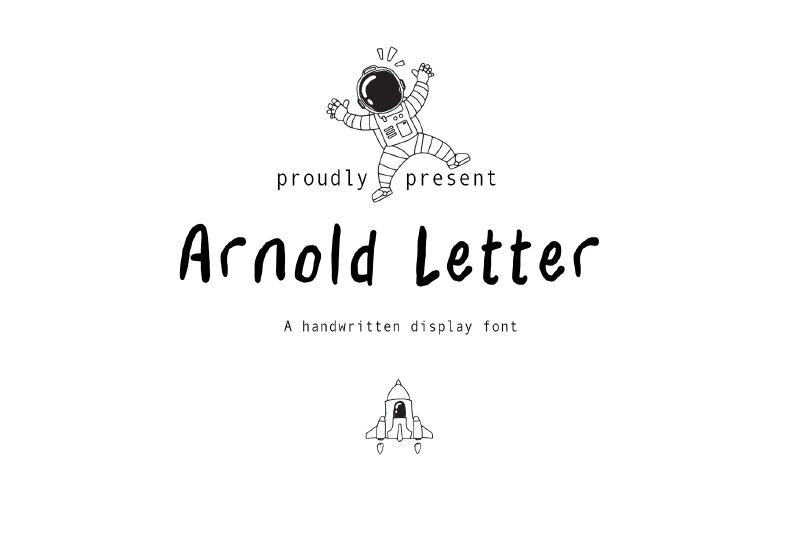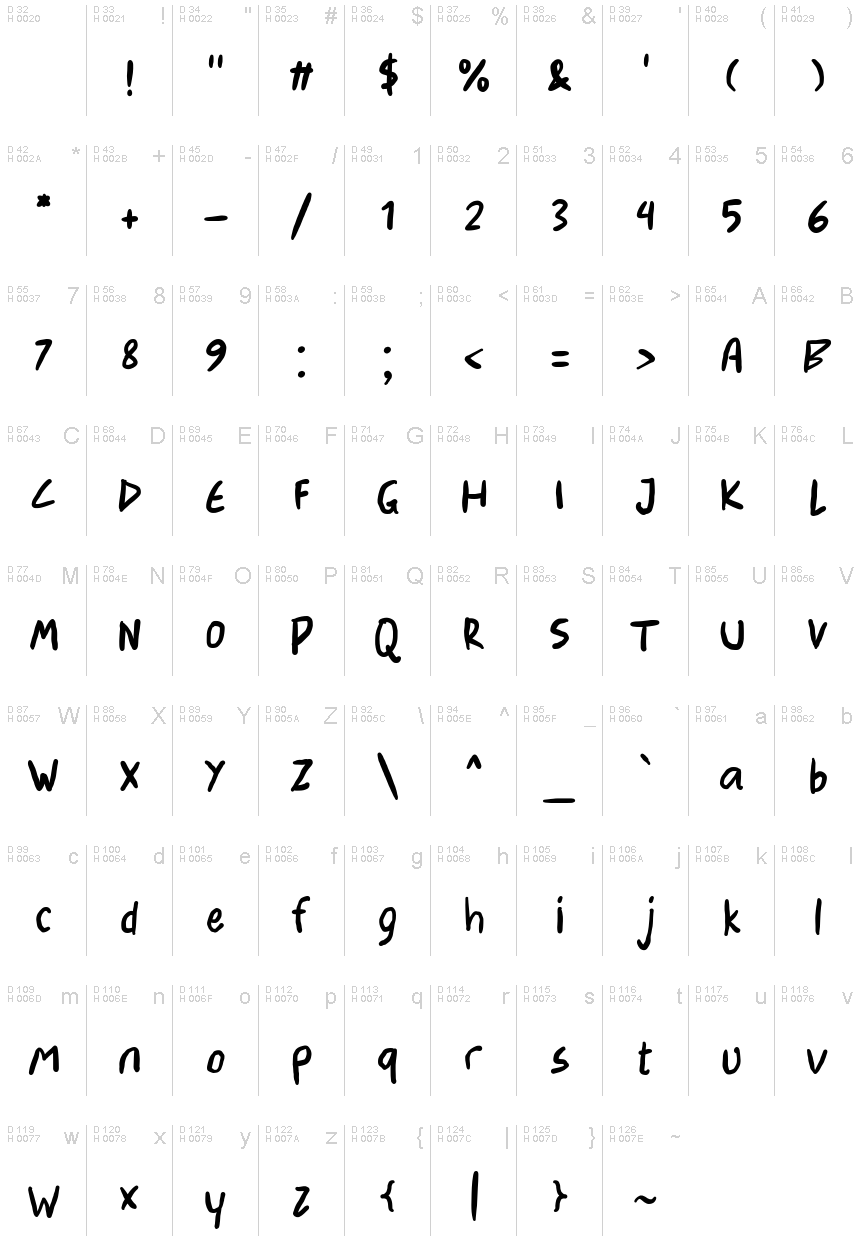
Arnold Letter- Demo
Arnold Letter font, crafted by Tera Asset Garage, is a delightful handwritten typeface that exudes charm and personality. This free font captures the organic flow of human handwriting, infusing each letter with an approachable and friendly feel. Its bold strokes make a striking impact while maintaining a playful elegance that's perfect for both casual and formal design contexts.
Ideal for projects needing a personal touch, Arnold Letter font is perfect for invitations, greeting cards, branding materials, and social media content. Its unique style helps convey warmth and sincerity in any creative work.